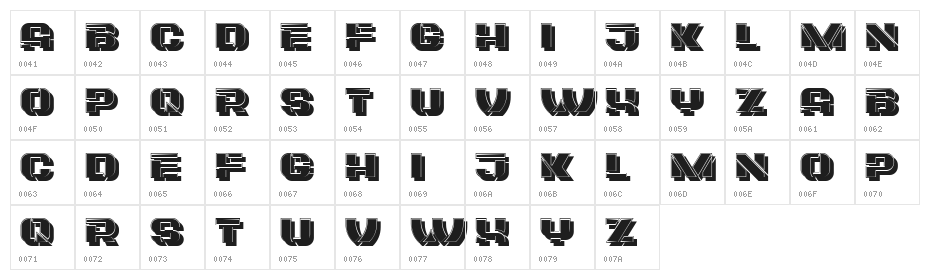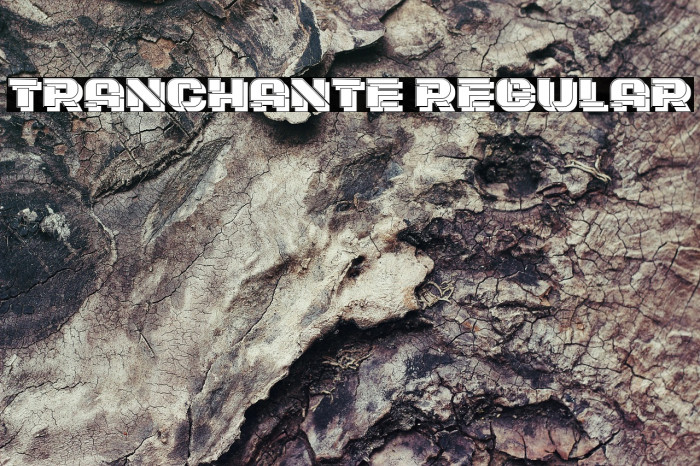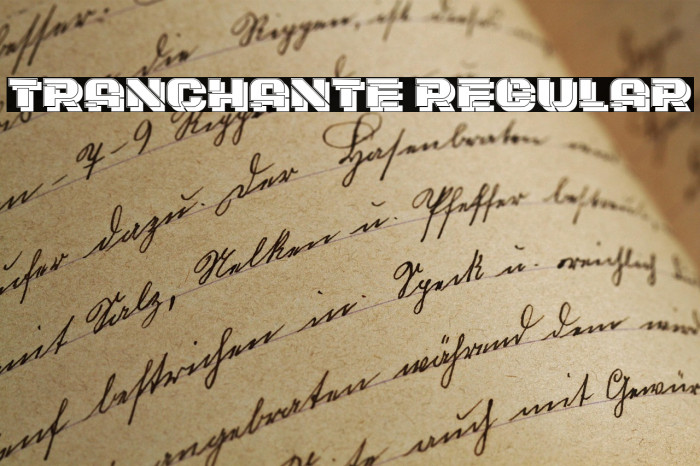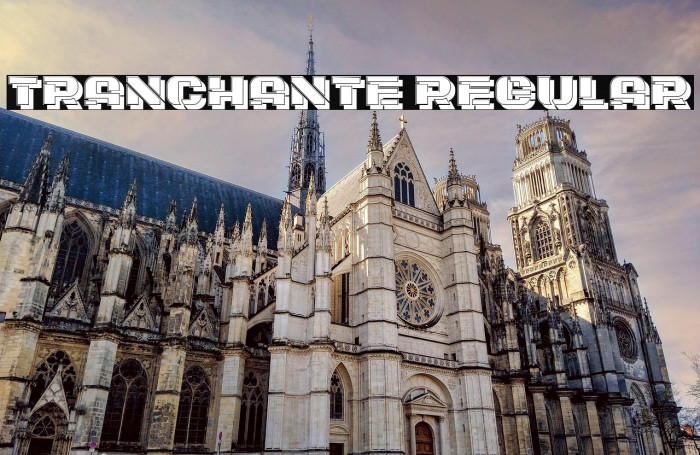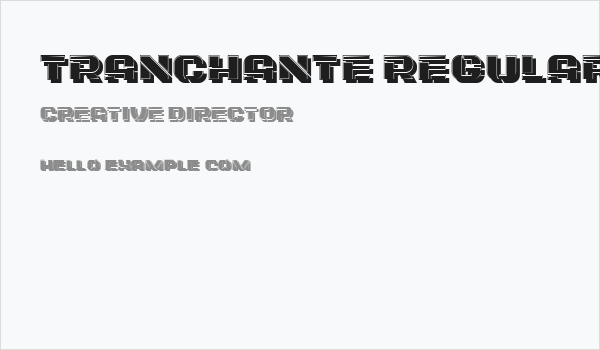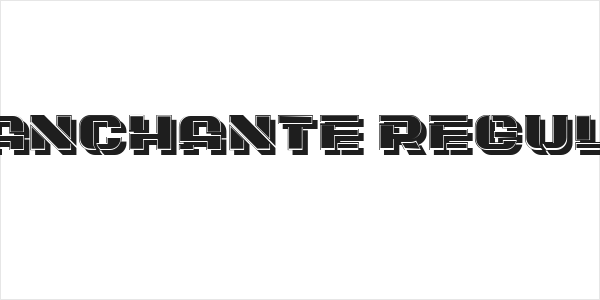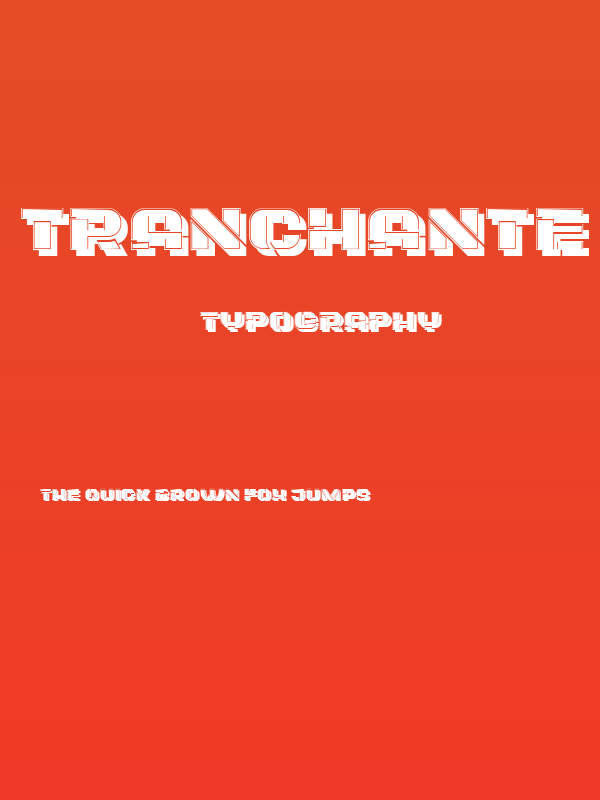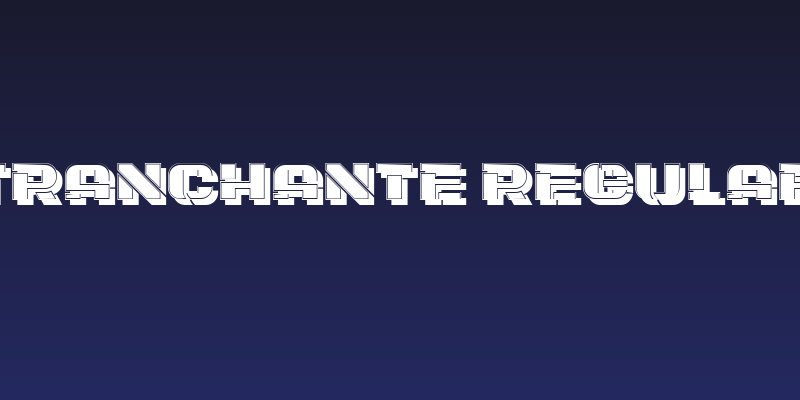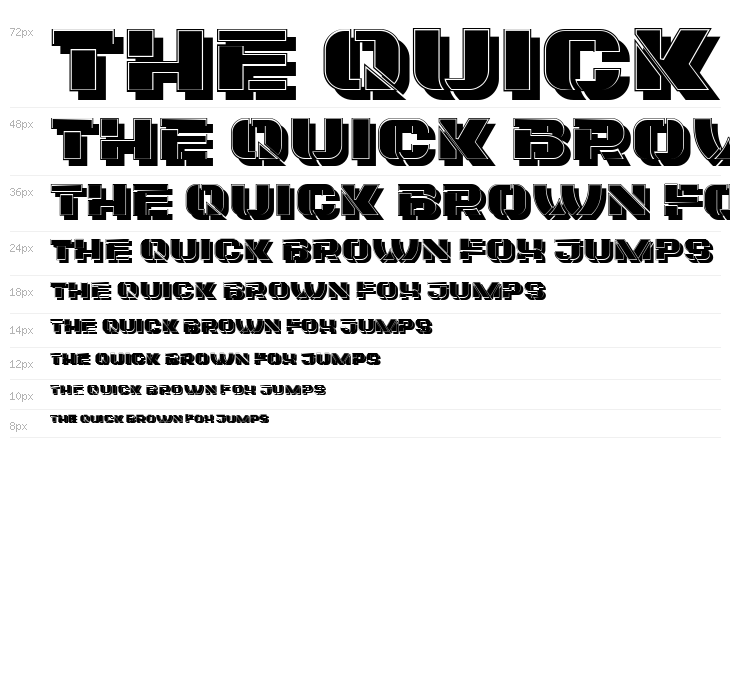
Tranchante Regular Font
Tranchante Regular Description
This font features a bold, geometric design with sharp, angular edges and a distinct three-dimensional effect. The characters are constructed with thick, solid lines that create a sense of depth and movement. The style is reminiscent of futuristic or industrial design, with a strong emphasis on structure and form. The uppercase letters are particularly striking, with their bold presence and dynamic shapes. The font's unique aesthetic makes it stand out, offering a modern twist on traditional block lettering.
| Proposed Projects | Ideal for use in branding, posters, and digital media where a strong, modern impact is desired. |